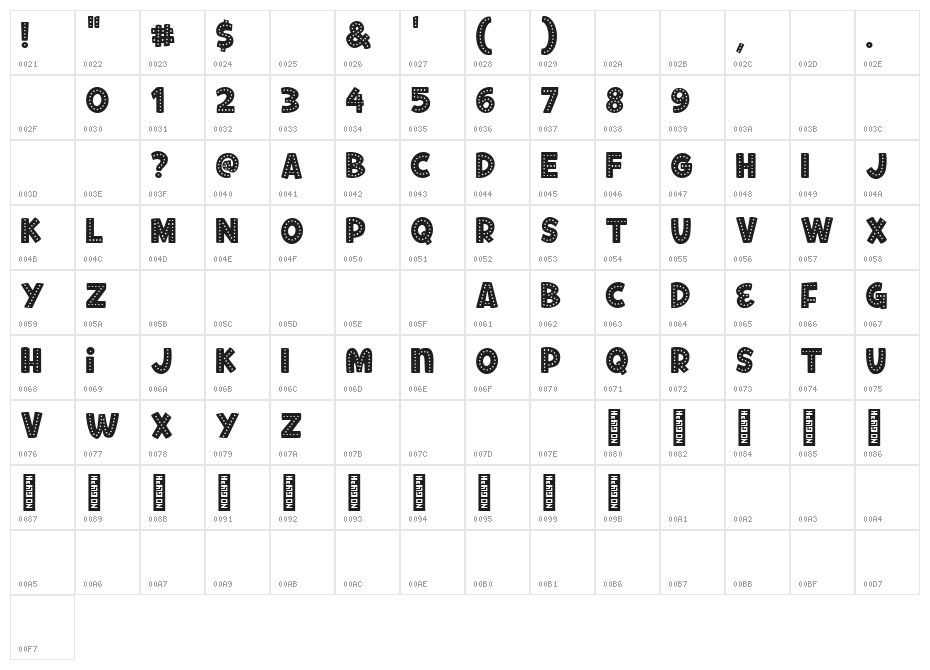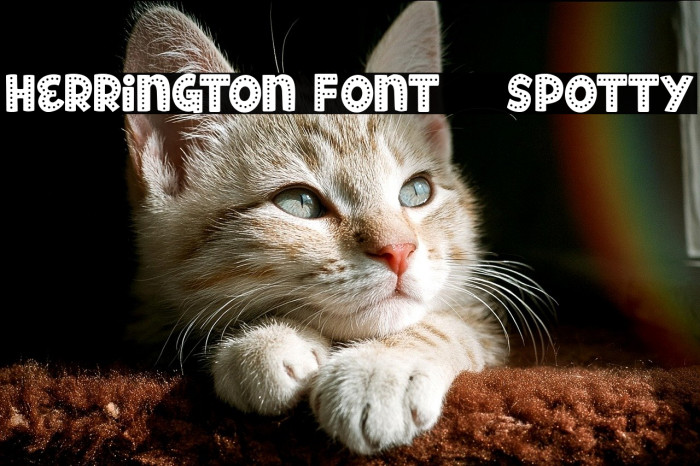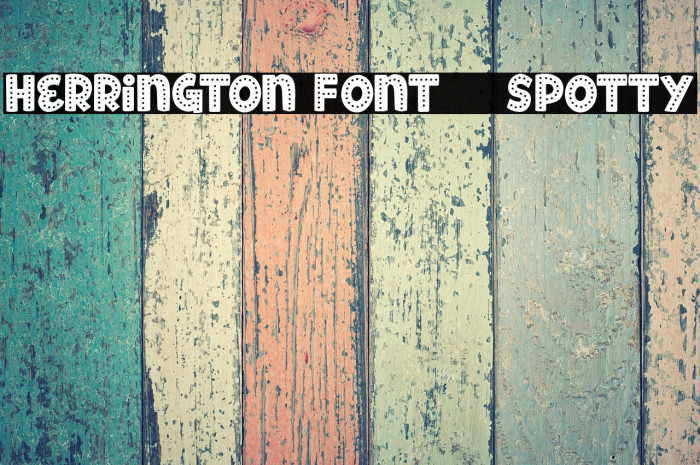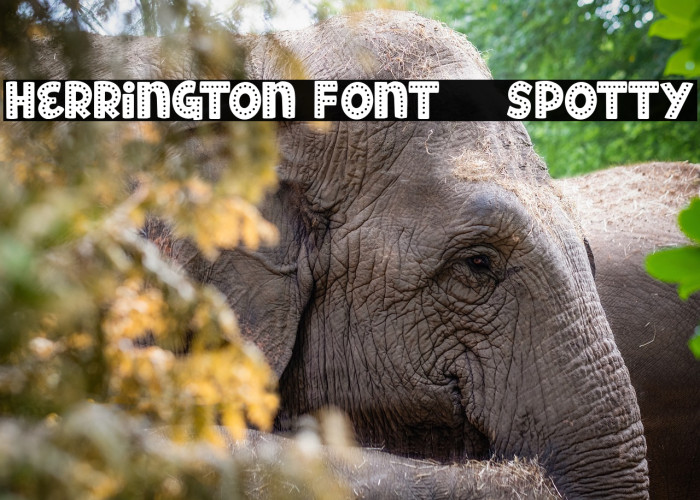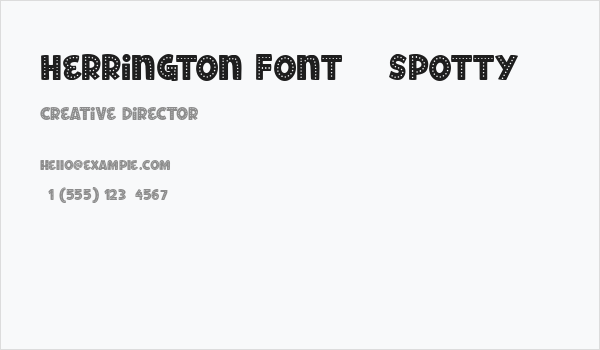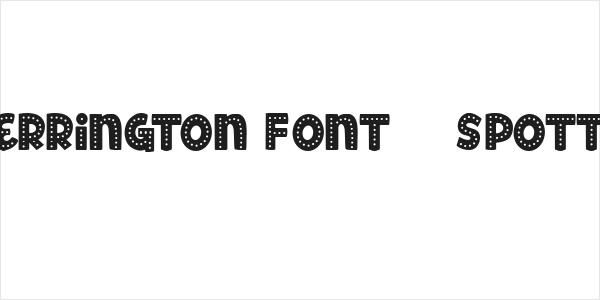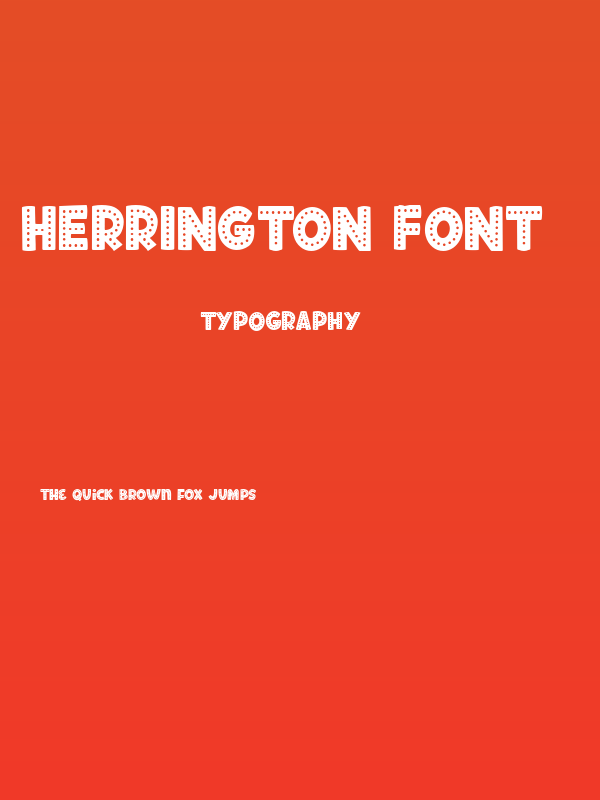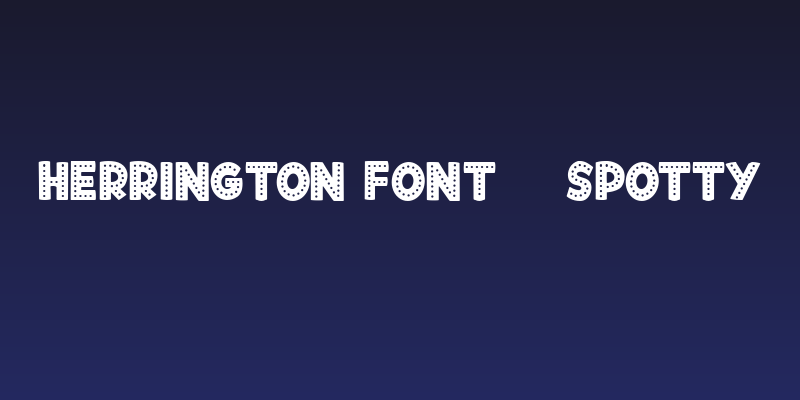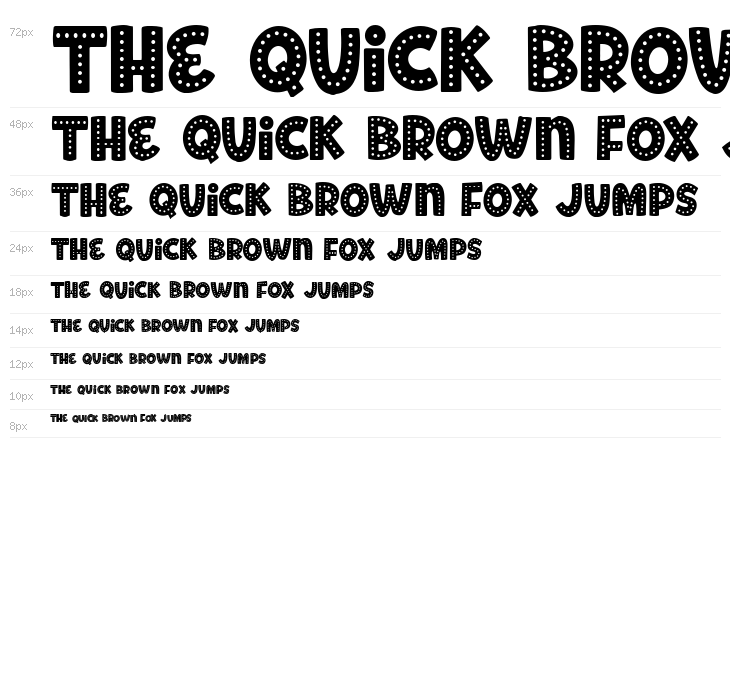
Herrington Font - Spotty Font
Herrington Font - Spotty Description
This playful and bold font features a unique design with a dotted pattern filling each character, creating a lively and eye-catching appearance. The letters are rounded and thick, providing a strong visual impact. The uppercase and lowercase letters maintain a consistent style, with numbers and special characters following the same dotted theme. The font's decorative nature makes it ideal for projects that require a fun and engaging look, such as children's books, party invitations, or playful branding. Its distinct style ensures that it stands out in any design context.
| Overall Style | Playful, Decorative |
| Proposed Projects | Ideal for children's books, party invitations, playful branding, and eye-catching posters. |